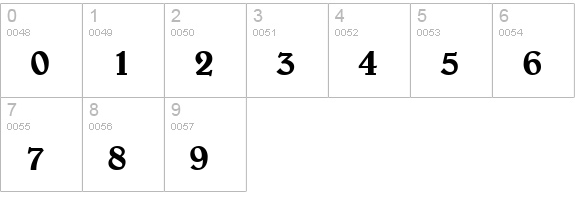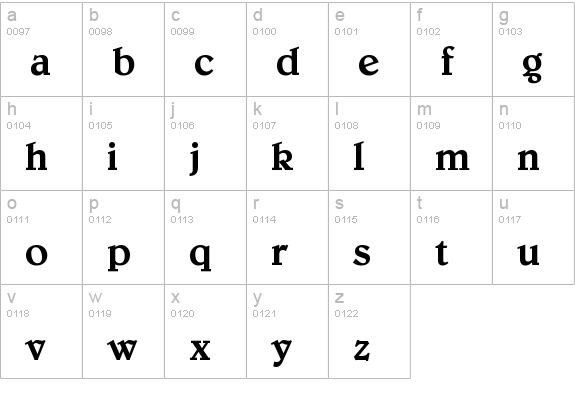
Barrister SSi is a modern and elegant font that exudes sophistication and professionalism. With its sleek lines and stylish curves, this font is perfect for creating eye-catching designs that demand attention. Whether you're working on a branding project, advertising campaign, or any other creative endeavor, Barrister SSi is sure to make a lasting impression. What sets Barrister SSi apart is not just its striking appearance, but also the fact that it is available for free download. That's right – you can get your hands on this premium font without spending a dime. Simply visit FontsMarket.com to access Barrister SSi and start using it in your projects today. Don't miss out on this fantastic opportunity to enhance your designs with the timeless elegance of Barrister SSi. Download it for free now and elevate your creative work to new heights.